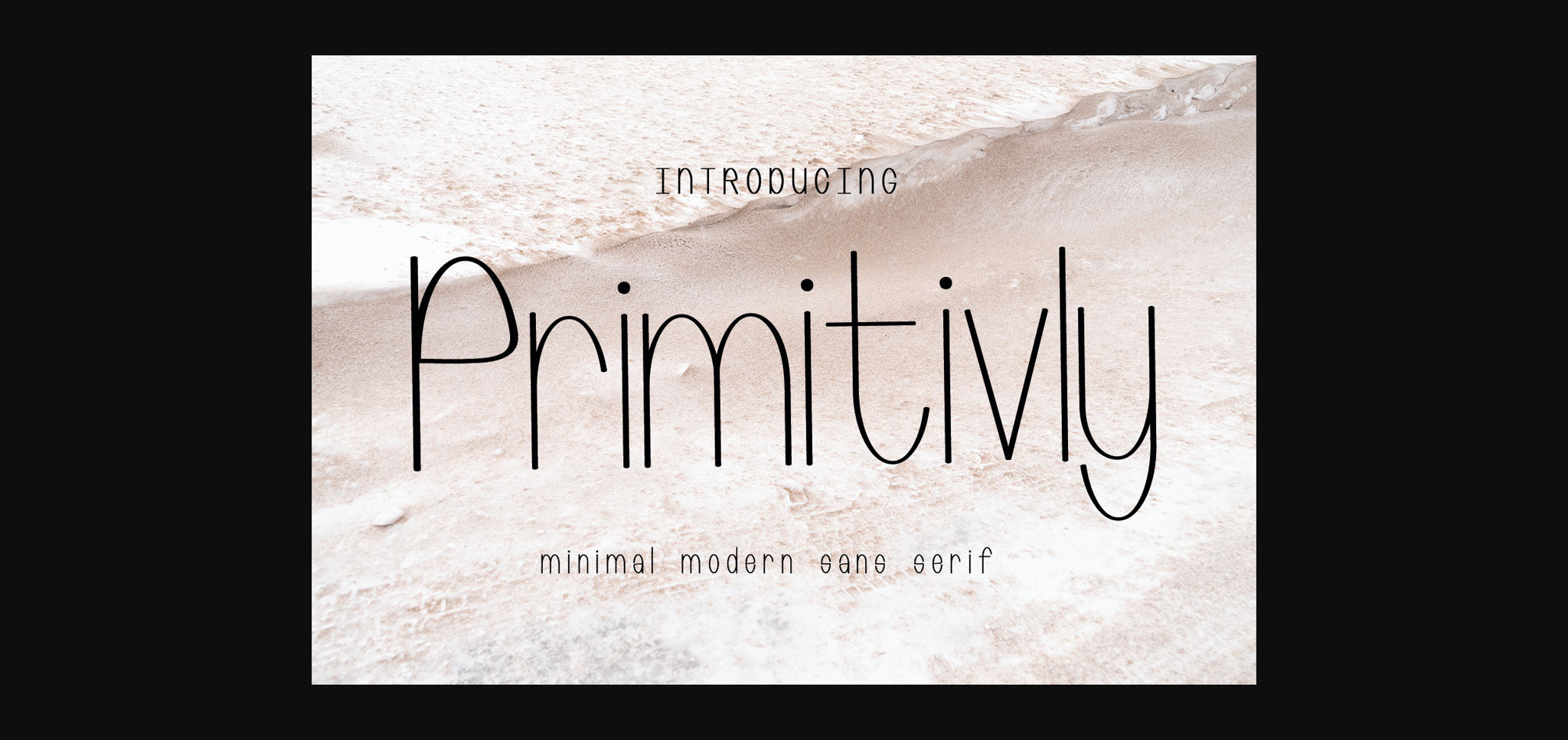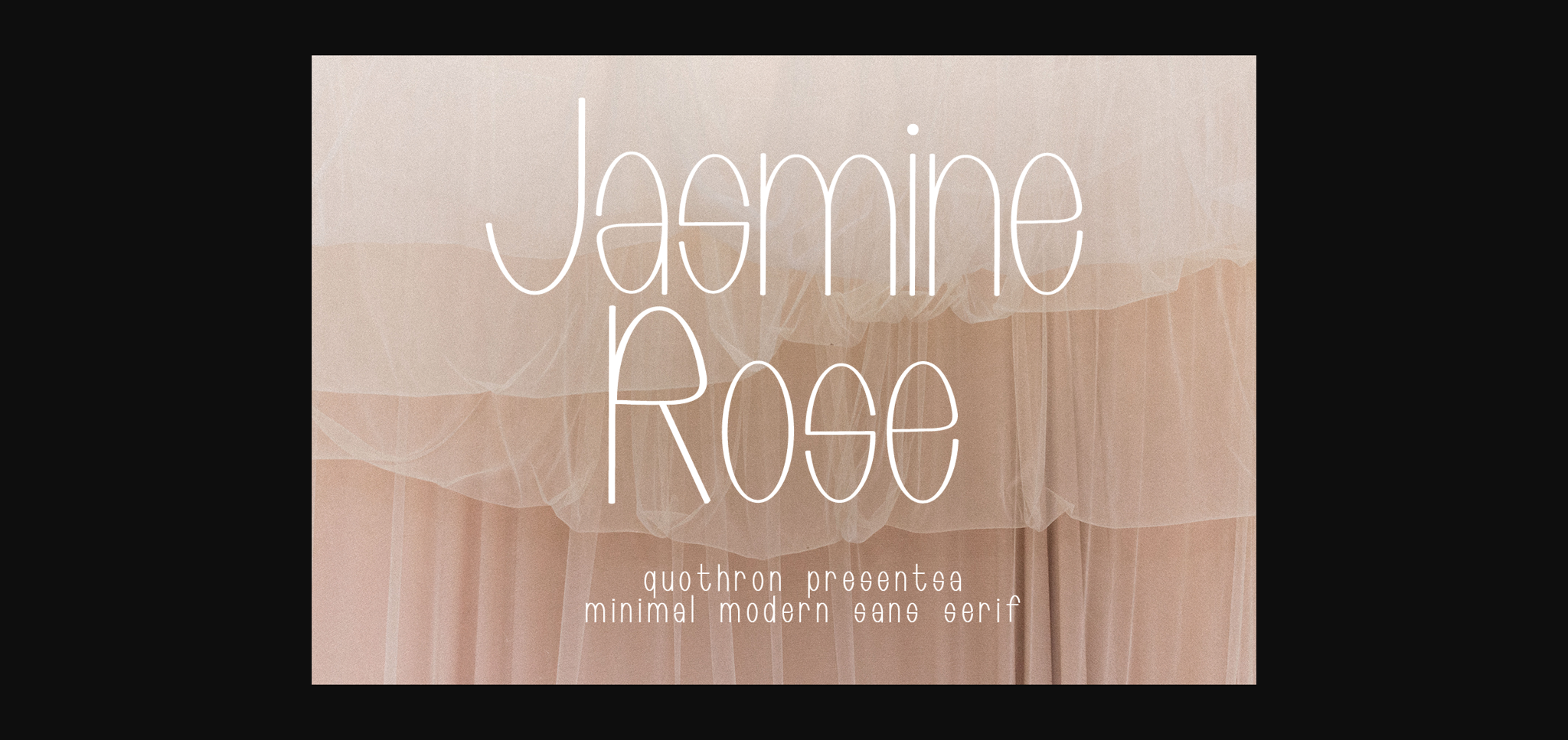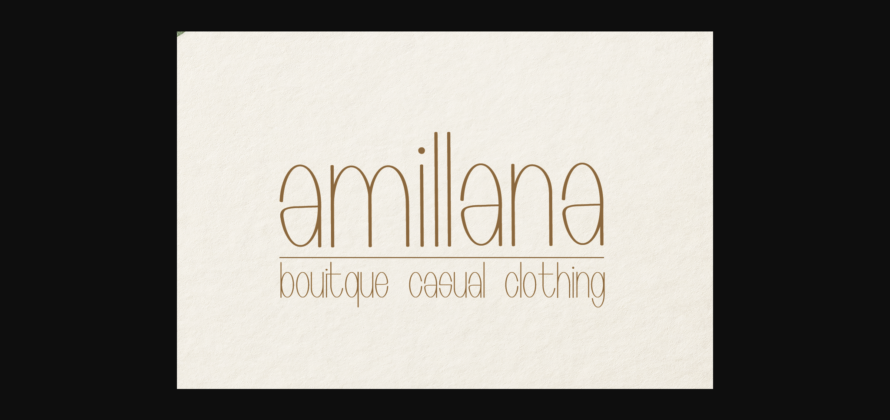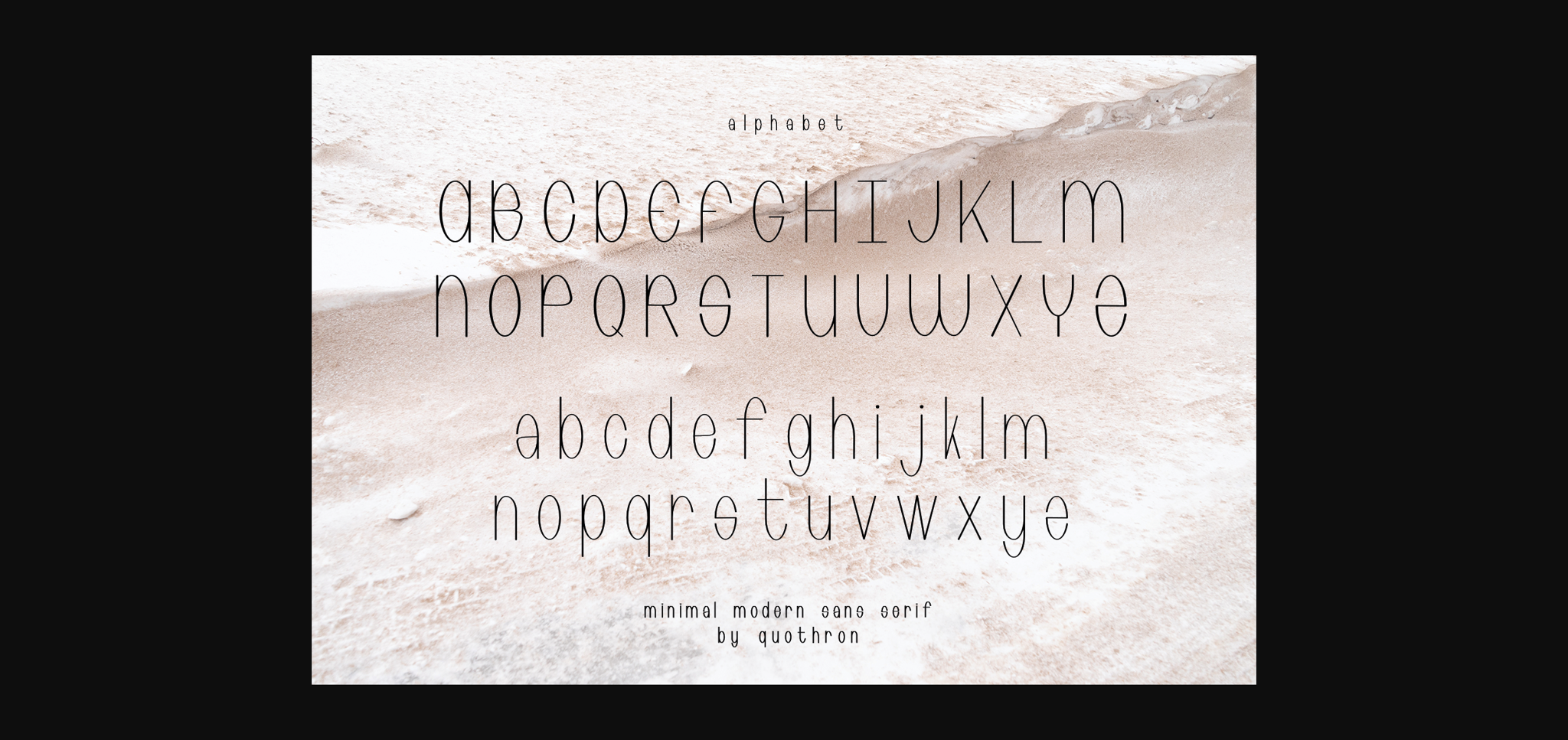
Primitivly Font
About Primitivly Font
Primitivly is a modern and clean sans serif font. Its versatility and neat vibe will brighten up each of your designs. Have fun with this beautiful font and explore its endless variations.